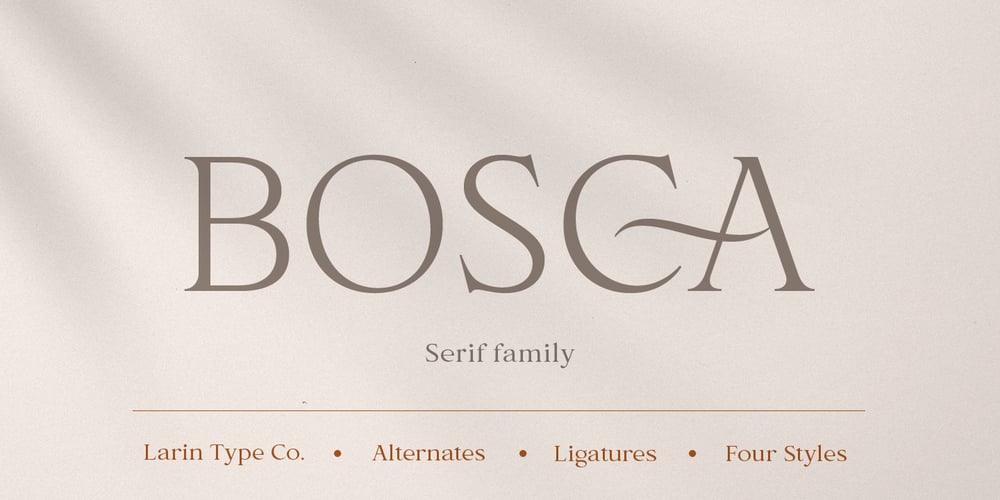
Bosca
Bosca font
Bosca Font Family was designed by Pavel Larin and published by Larin Type Co. Bosca contains 4 styles and family package options. Bosca this is an elegant serif font family which includes 4 weights. It is multi-purpose and can be used for a variety of tasks. It can look either conservative and restrained or modern and elegant thanks to ligatures and alternative substitutes, they will add variety to your project and make it more attractive and give many options for creating your design. Heavier weights are great for headlines, logos, and other important things. light will look elegant and more discharged. The regular weight is perfect for text tasks, it has a balanced dynamics and is easy to read. This font is easy to use has OpenType features, and all characters in this font have PUA encoding.